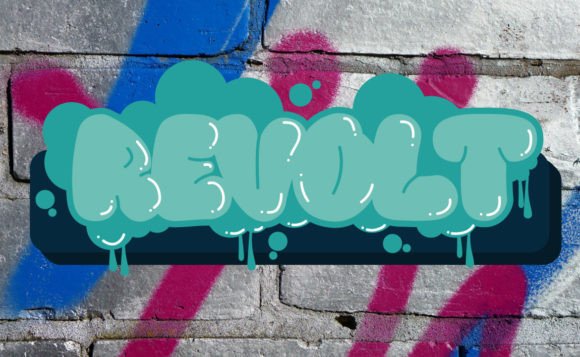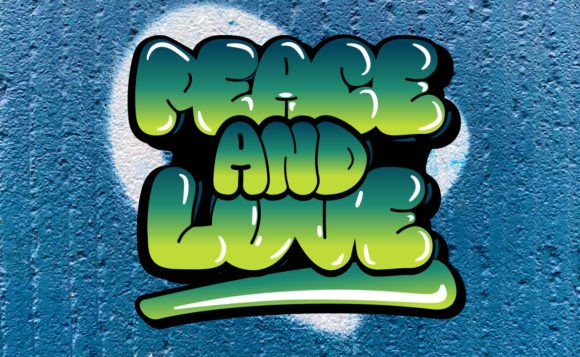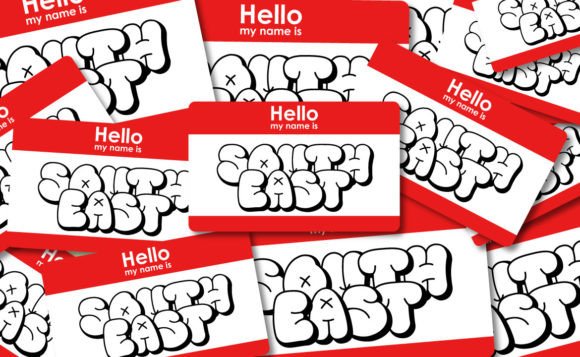
Chunky Bomb is a versatile graffiti font that combines the playful and bubbly aesthetics of bubble styles with an old-school twist.
This decorative font brings a sense of nostalgia and urban charm to your design projects Each character in Chunky Bomb features a bubble-like appearance.